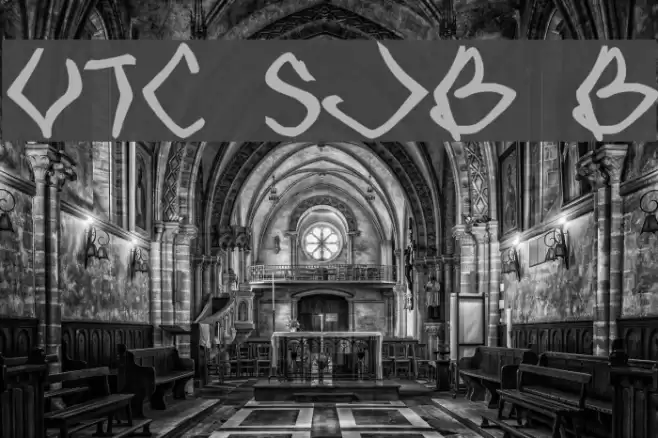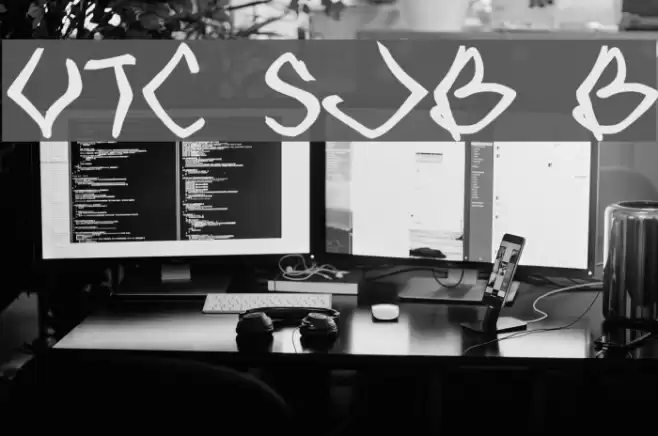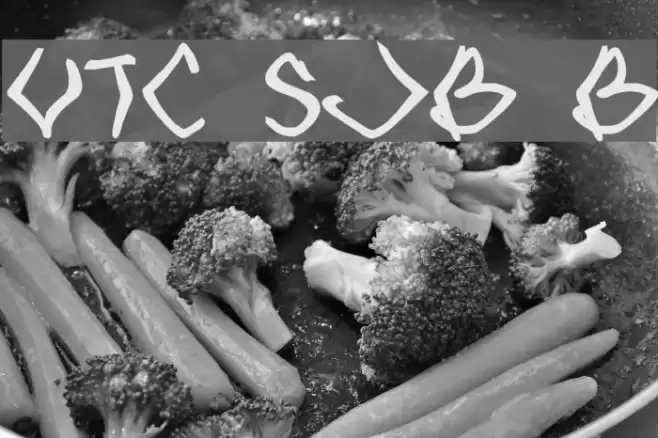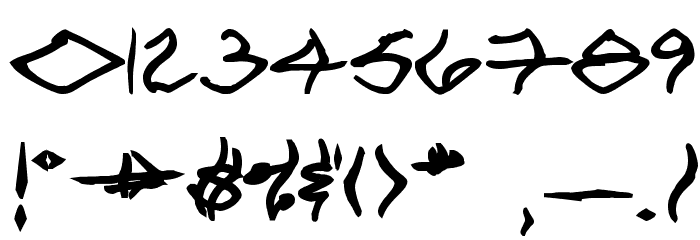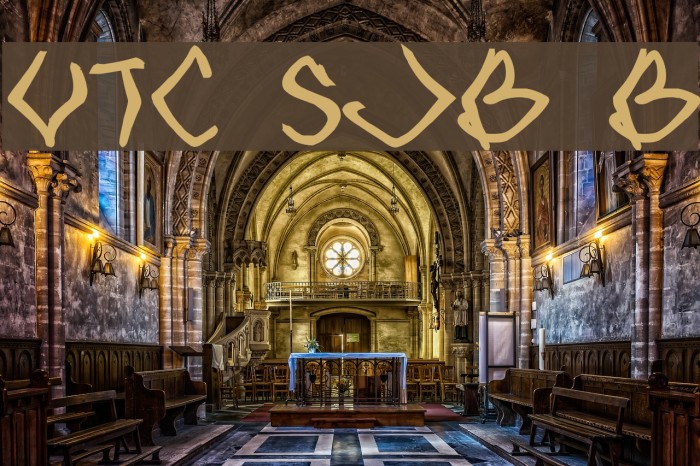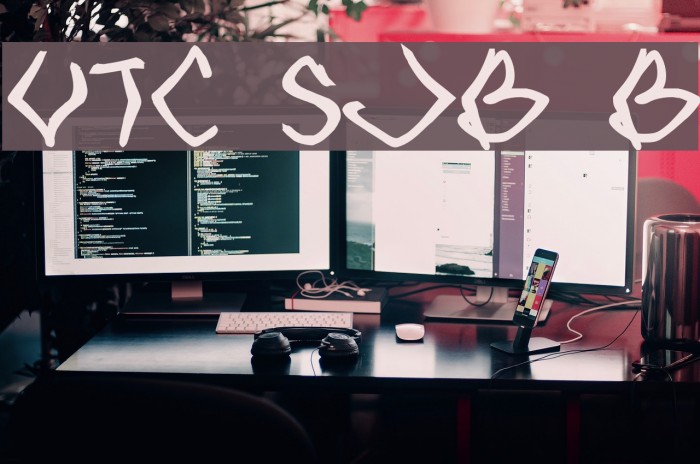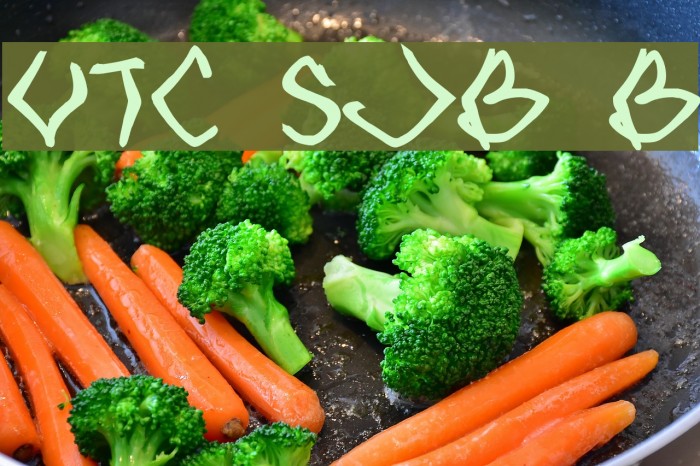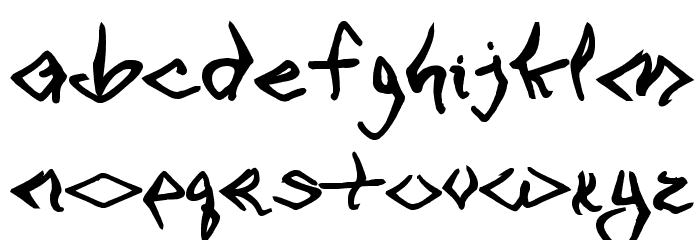
VTC SeeJoBend Bold Font
VTC SeeJoBend Bold Description
This font features a highly stylized, abstract design with sharp, angular lines and a dynamic flow. The characters are bold and expressive, with a unique, almost calligraphic style that suggests movement and energy. The uppercase and lowercase letters maintain a consistent aesthetic, with exaggerated curves and pointed edges that create a sense of drama and intensity. The numbers and special characters follow the same design principles, ensuring a cohesive look across all elements. This font is ideal for projects that require a bold, artistic touch, such as posters, album covers, or branding materials that aim to stand out.
A bold, abstract font with sharp, angular lines and a dynamic, artistic style from Gothic fonts.
- Proposed Projects: Ideal for artistic posters, album covers, unique branding materials, and creative design projects.
- Use Case: Headlines, Logos, Artistic projects